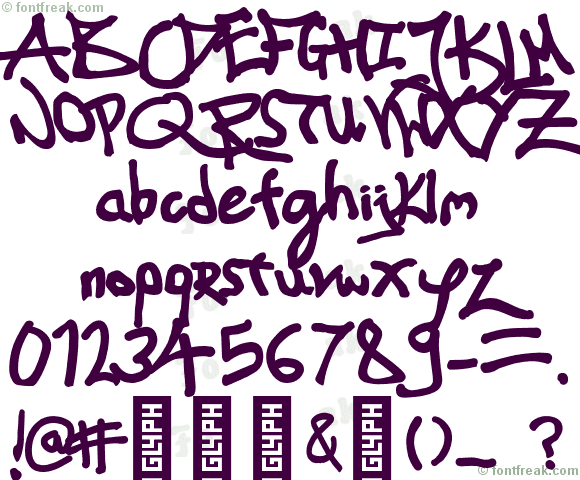
MyTown-Regular
About MyTown-Regular
MyTown-Regular by Simon Cozens is a charming handwritten font that captures a unique blend of casual elegance and playful personality. This display font features a distinct stroke weight that varies, offering a delightful contrast that enhances its handwritten appeal. The characters are well-spaced, allowing for easy readability, while the slightly irregular shapes lend a personal touch that feels both inviting and authentic.
Ideal for a variety of creative projects, MyTown-Regular shines in contexts such as wedding invitations, where its warmth can add a personal flair. It also works beautifully on restaurant menus, providing an approachable feel that entices diners. Moreover, this font finds its place in children's book illustrations, where its playful nature can capture the imagination of young readers. Graphic designers looking to create eye-catching social media graphics will also appreciate MyTown-Regular for its ability to stand out without overwhelming the message.
The target audience for this font includes graphic designers, small business owners, and content creators who seek to evoke a sense of personality and warmth in their work. Whether you’re designing promotional materials or crafting unique digital content, MyTown-Regular offers a friendly, relatable aesthetic that resonates with viewers.
What sets MyTown-Regular apart is its ability to convey emotion and informality while maintaining a polished appearance. The font’s handwritten style makes it versatile enough for both personal and professional applications, making it a fantastic choice for anyone looking to add a distinctive touch to their designs. For those interested in exploring its potential, the MyTown-Regular font free download makes it accessible to anyone eager to enhance their typography collection.